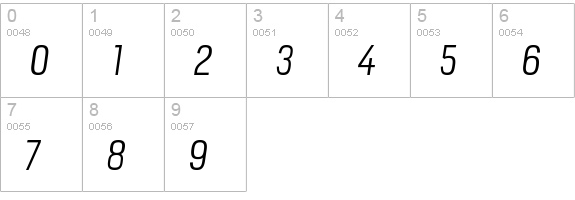
HeronSansCond Light Italic is a refined, elegant, italic variant in the HeronSansCond typeface family \xE2\x80\x94 well suited to elegant body text, refined sub-headings, and luxury branding.
HeronSansCond Light Italic is a sleek and modern typeface designed to bring a touch of elegance to your projects. With its delicate and graceful curves, this font exudes a sense of sophistication and style. Perfect for adding a subtle emphasis or creating a sense of movement in your designs, HeronSansCond Light Italic is a versatile choice for a wide range of applications. Best of all, this font is available for free download at FontsMarket.com. Whether you're a designer looking to elevate your work or a business owner seeking a fresh look for your branding, HeronSansCond Light Italic is sure to impress. Download it today and add a touch of refinement to your projects!